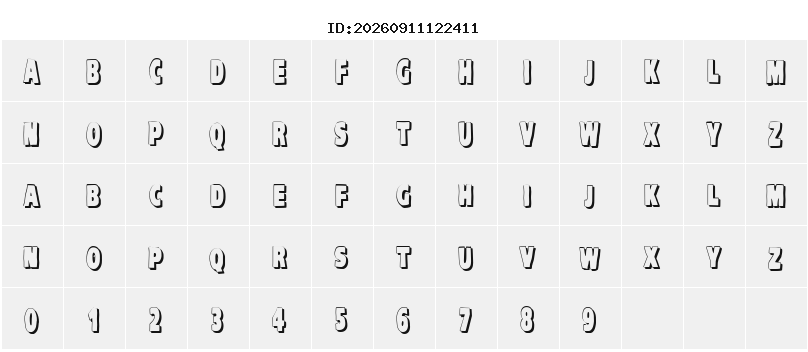
• Font Name: VTC-KomikaHeadLinerTwo
• Font Style: Shadow
• Designer: WolfBainx - Larry E. Yerkes, Vigilante Typeface Corporation.
About VTC-KomikaHeadLinerTwo.ttf
VTC-KomikaHeadLinerTwo.ttf is a modern, elegant sans-serif font designed for ultimate readability and visual harmony. Perfect for branding, headlines, web design, and print materials.